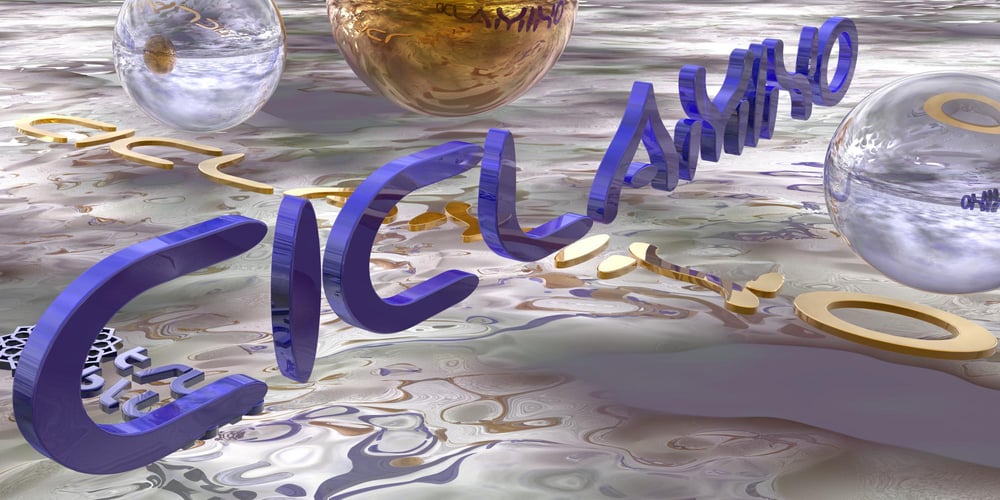
Ciclamino
Ciclamino font
Ciclamino Font Family was designed by Gianni Marcolongo and published by TrueBlue. Ciclamino contains 1 styles and family package options. “Ciclamino” is the Italian name for a small, elegant forest flower with a sweet but strong fragrance. This font is inspired by the peculiars characteristics of thisflower, to the elegant shapes of the petals and its intense fragrance butsweet and refined.The result is a font with a particularly incisive but elegant layout suitable for high-impact graphic projects with a modern and decisive flavor but with a note of balanced elegance.There are no limits to the situations in which you can use it to give a touch of originality to your graphic creations but there are some project categories in which it could be a choice of great visual impact and help you express all your creativity. The particular can give excellent results in all those situations that have a flavor of modernity, and innovative technology and express innovation and dynamism and decision. At the same time, its decisive and sinuous lines also adapt to situations with a gothic and fantasy relish and even to tribal graphics. But this is just a minimal list of situations in which it can express its potential, it is a very versatile font and you can find a lot of other situations in which its use can make a difference and help you obtain an original result with a great visual impact.